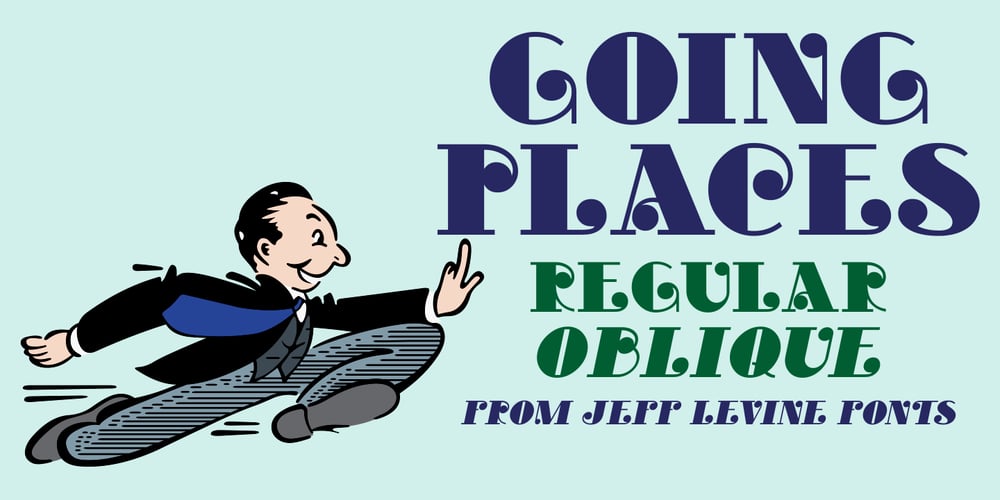
Going Places JNL Font Family was designed by Jeff Levine and published by Jeff Levine. Going Places JNL contains 2 styles and family package options. Based on hand lettering from a January 26, 1930 ad for the 1930 Fox Studios film “Let’s Go Places”, the lettering is an ultra bold serif design with numerous ball terminals throughout the character set. The typeface is both formal, yet casual and playful in appearance.Going Places JNL is available in both regular and oblique versions.